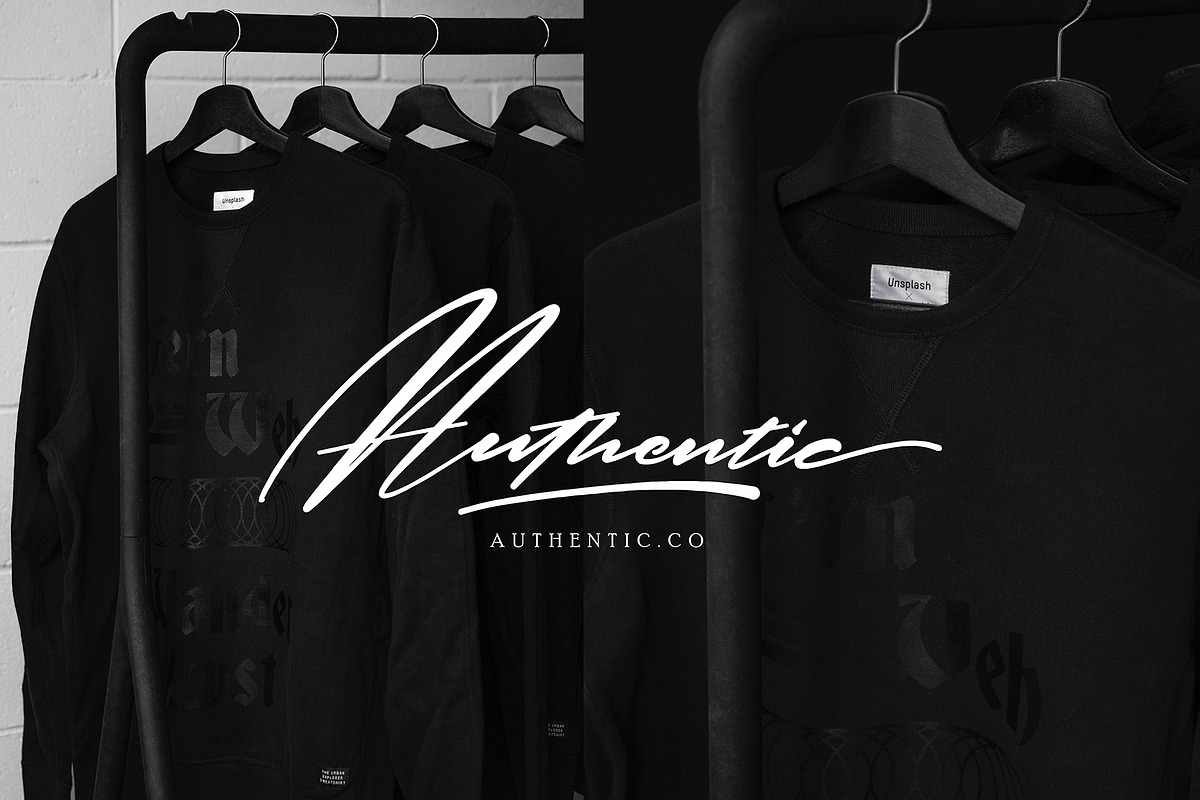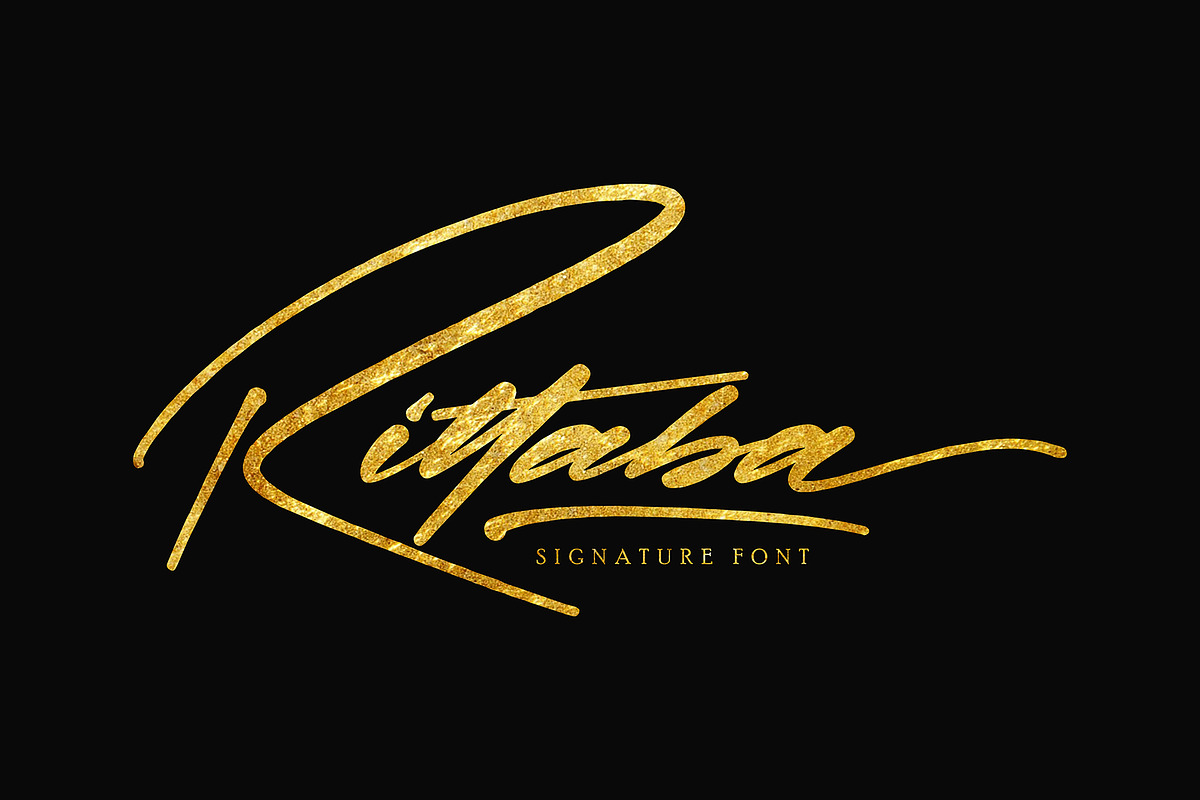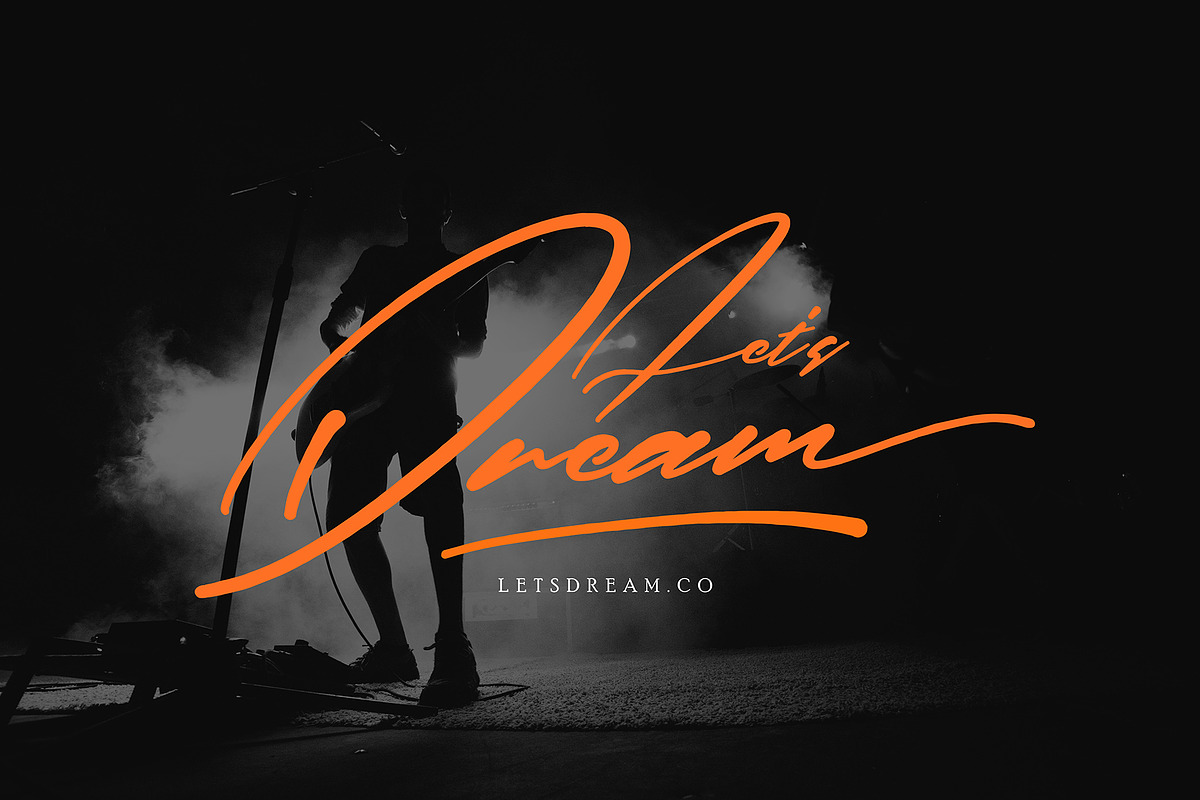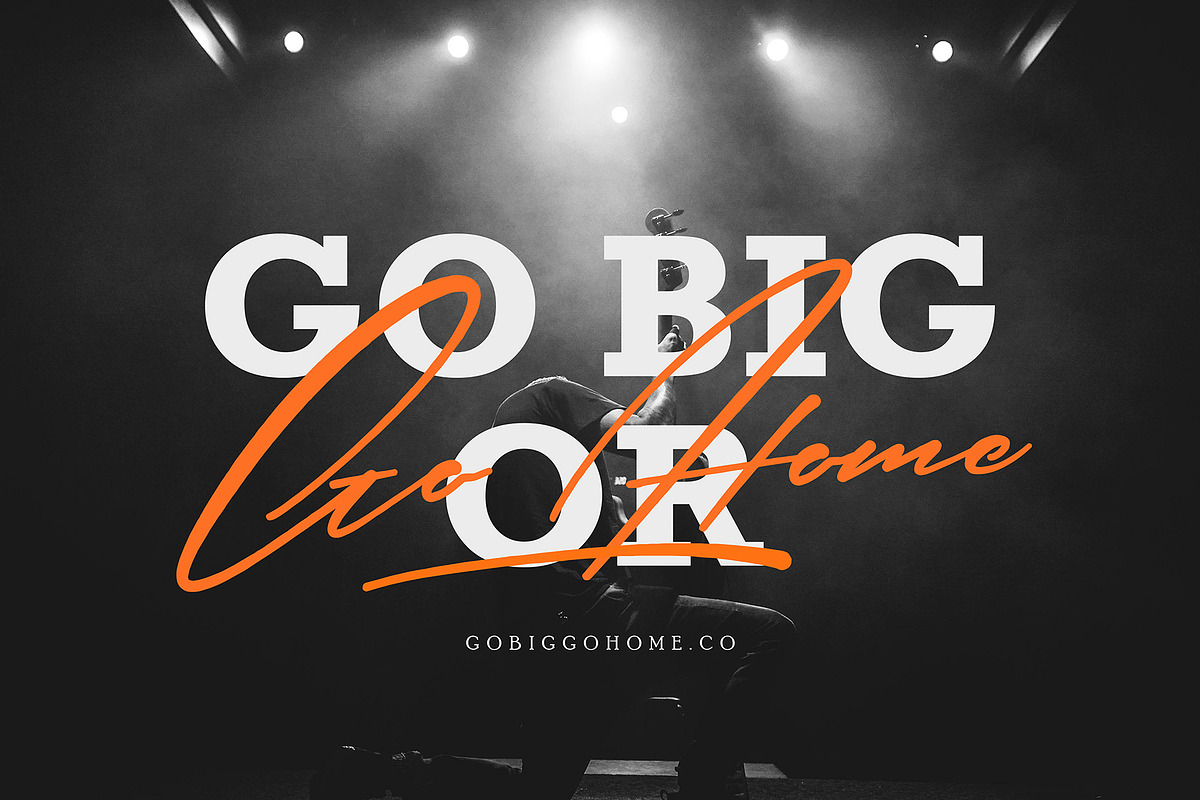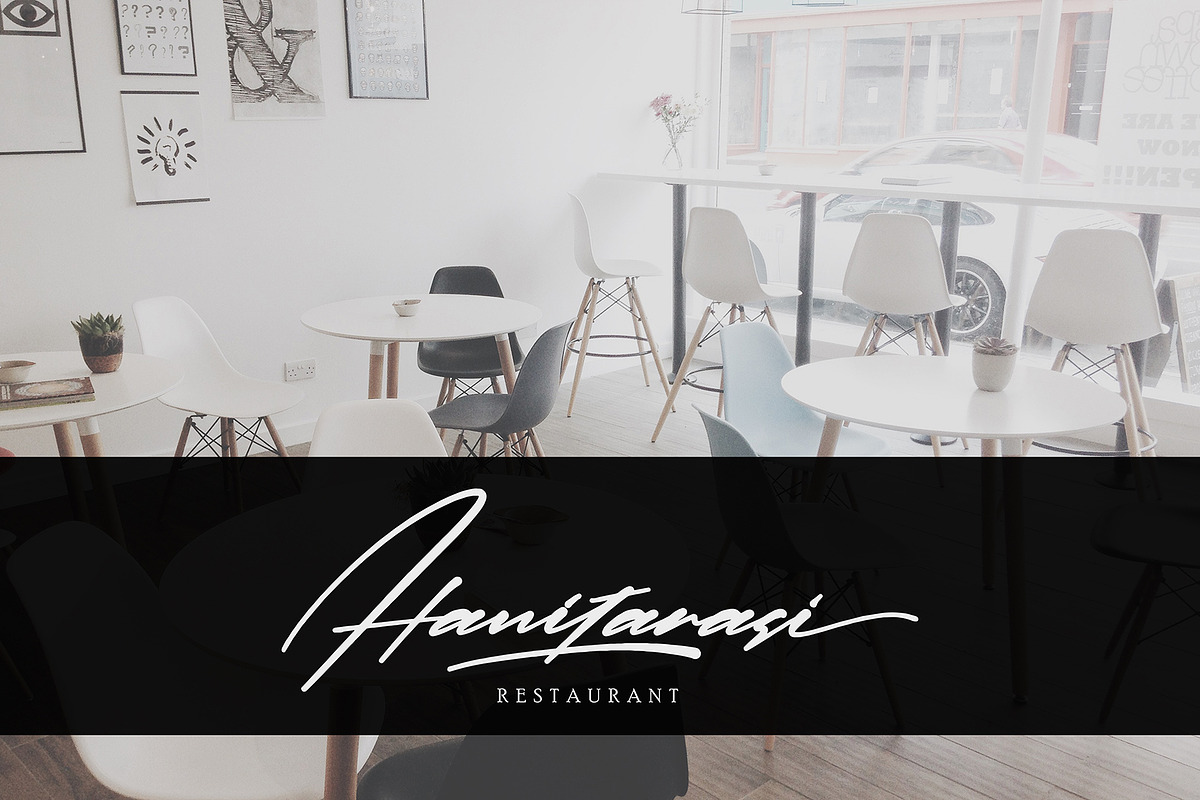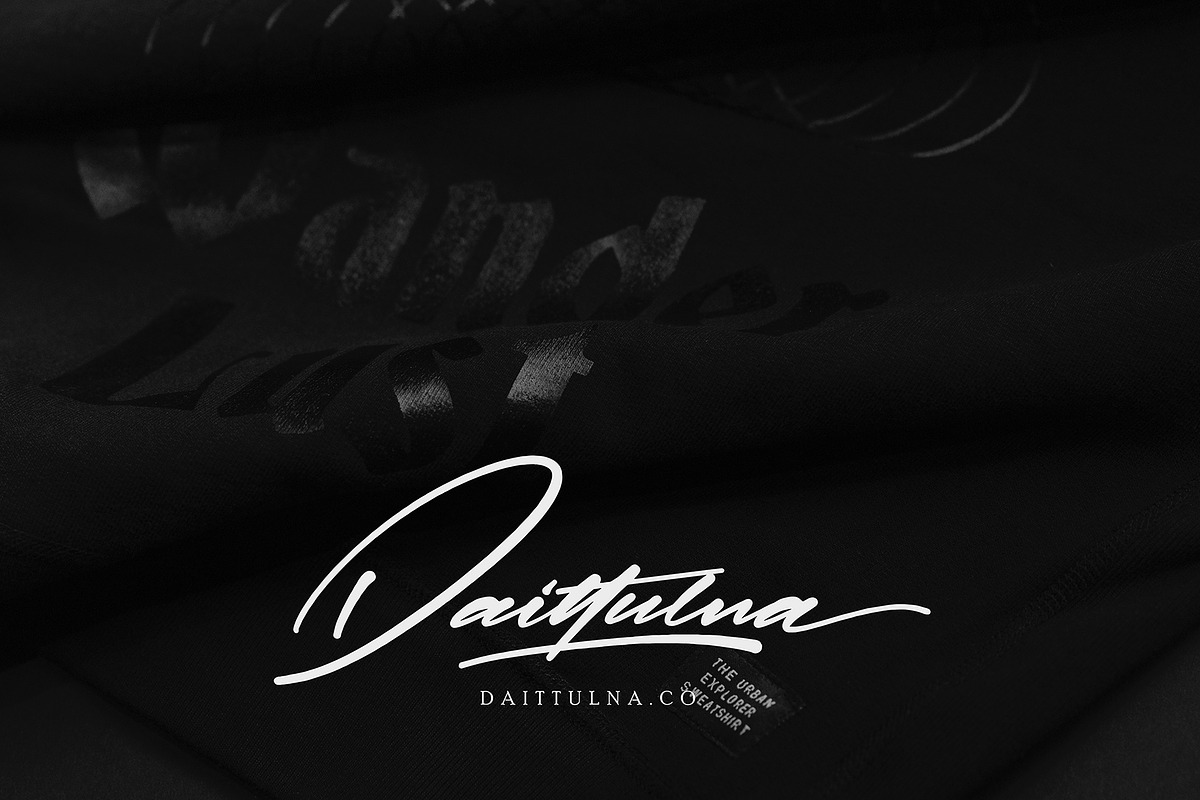
Rittaba
Rittaba font with new style signature handwritten, this font will perfect for many different project ex: quotes, logo, blog header, poster, banding, fashion, apparel, letter, invitation, stationery, etc...